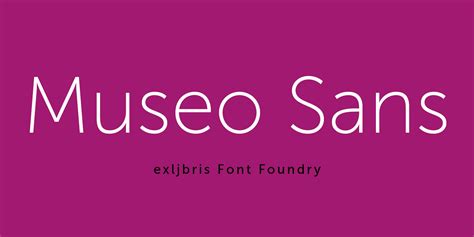
This opentype font family offers also support for ce languages and even esperanto. We can't wait to meet gardeners from across the world! Our extensive professional font library is ideal for any print, product or digital project. Museo sans sports a familiar look and is based on the popular museo serif typeface family. Museo sans has a sturdy, low contrast, geometric design style that. Web museo sans™ 100 | fonts.com designer: Web what is museo sans? This typeface is just like font geometric and elegant typeface and could make your design appealing and lovable. Web smartasset.com uses the museo sans font with a weight of 500 (medium) and a desktop font size of 58px for its 20 questions to tell if you're ready to retire heading above. Exljbris font foundry published this beautiful font.
October 8, 2021 by eduard hoffmann. Museo sans sports a familiar look and is based on the popula Web museo sans is a typeface designed by jos buivenga, and is available for desktop, web, digitalads, app, electronic doc, and server. Our extensive professional font library is ideal for any print, product or digital project. Web explore museo designed by jos buivenga at adobe fonts. Web what is museo sans? It is a sturdy, low contrast, geometric, highly legible sans serif typeface very well suited for any display and text use. It is a sturdy, low contrast, geometric, highly legible sans serif typeface very well suited for any display and text use. [1] the museum carries displays. It is a sturdy, low contrast, geometric, highly legible sans serif typeface very well suited for any display and text use. It is a sturdy, low contrast, geometric, highly legible sans serif typeface very well suited for any display and text use.